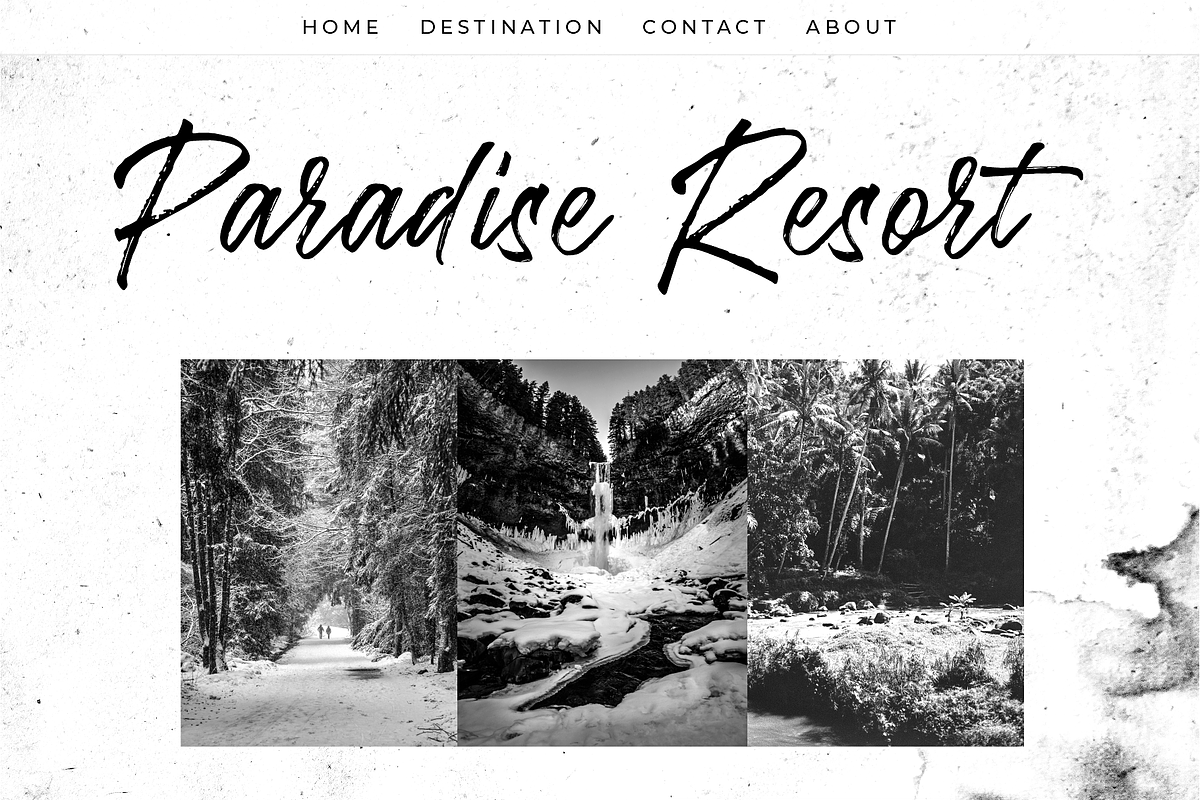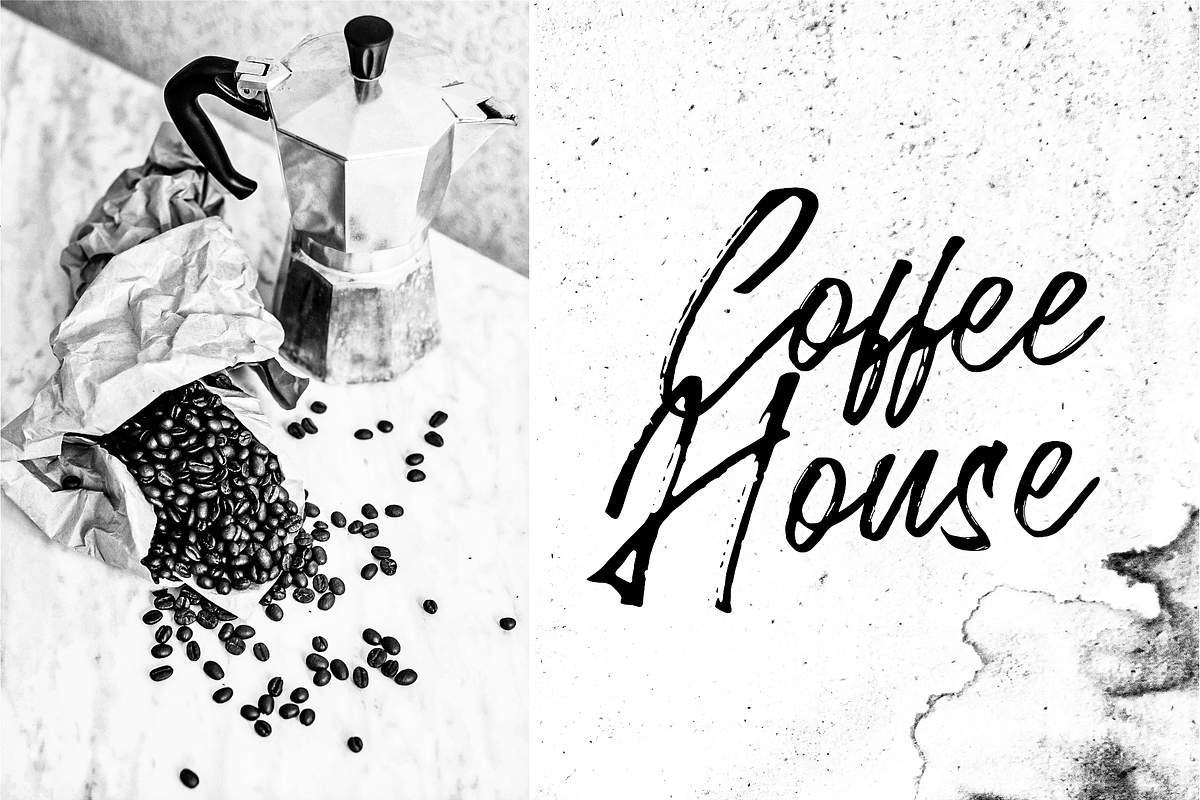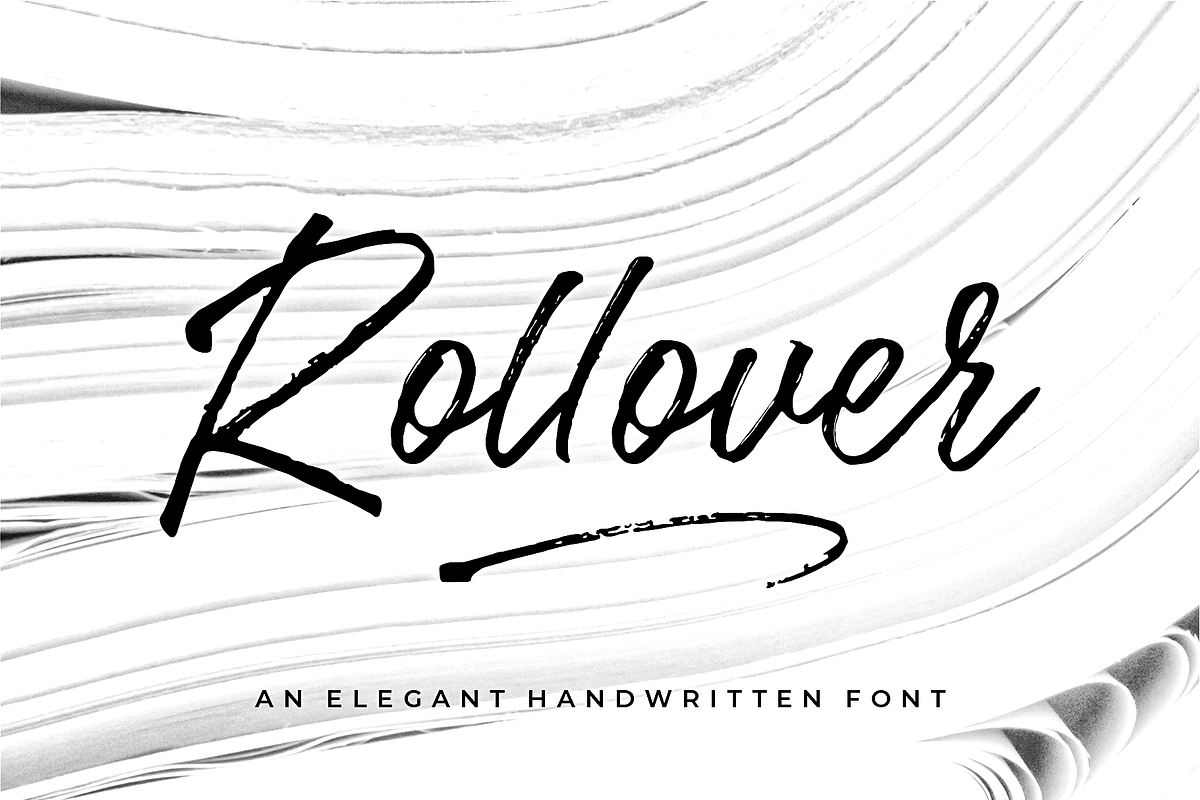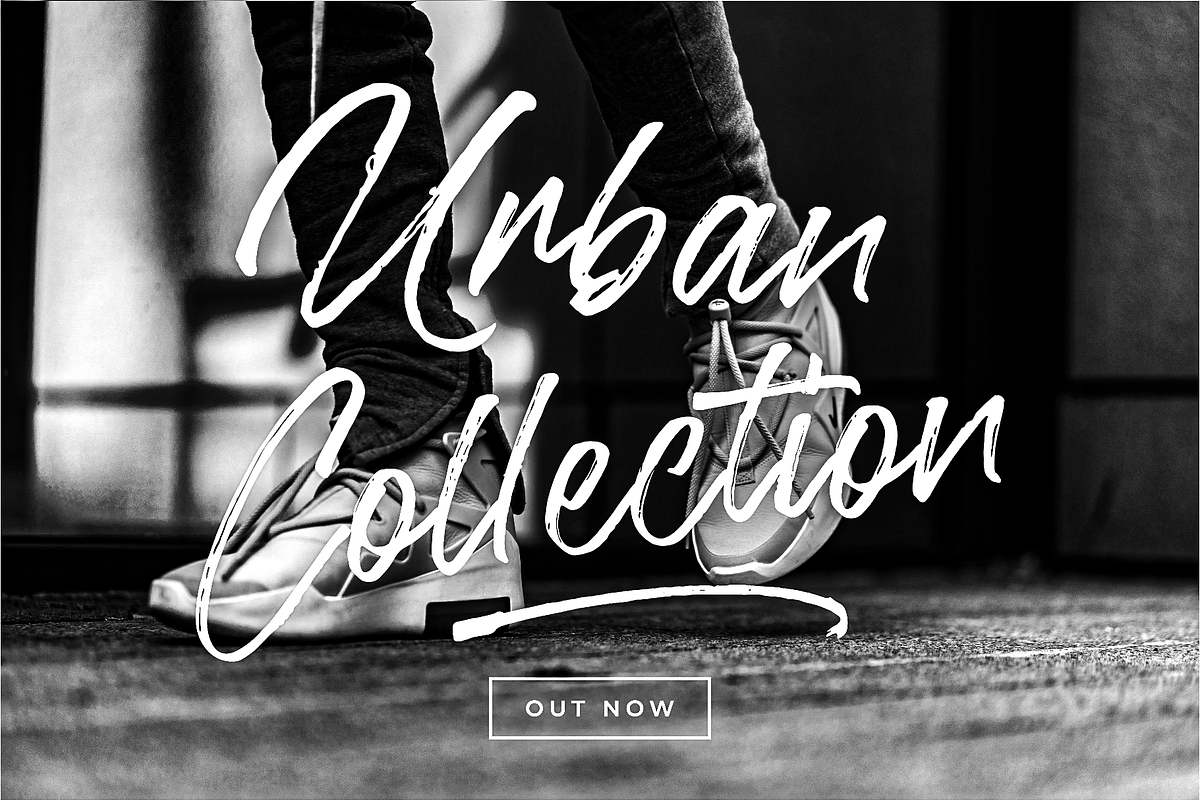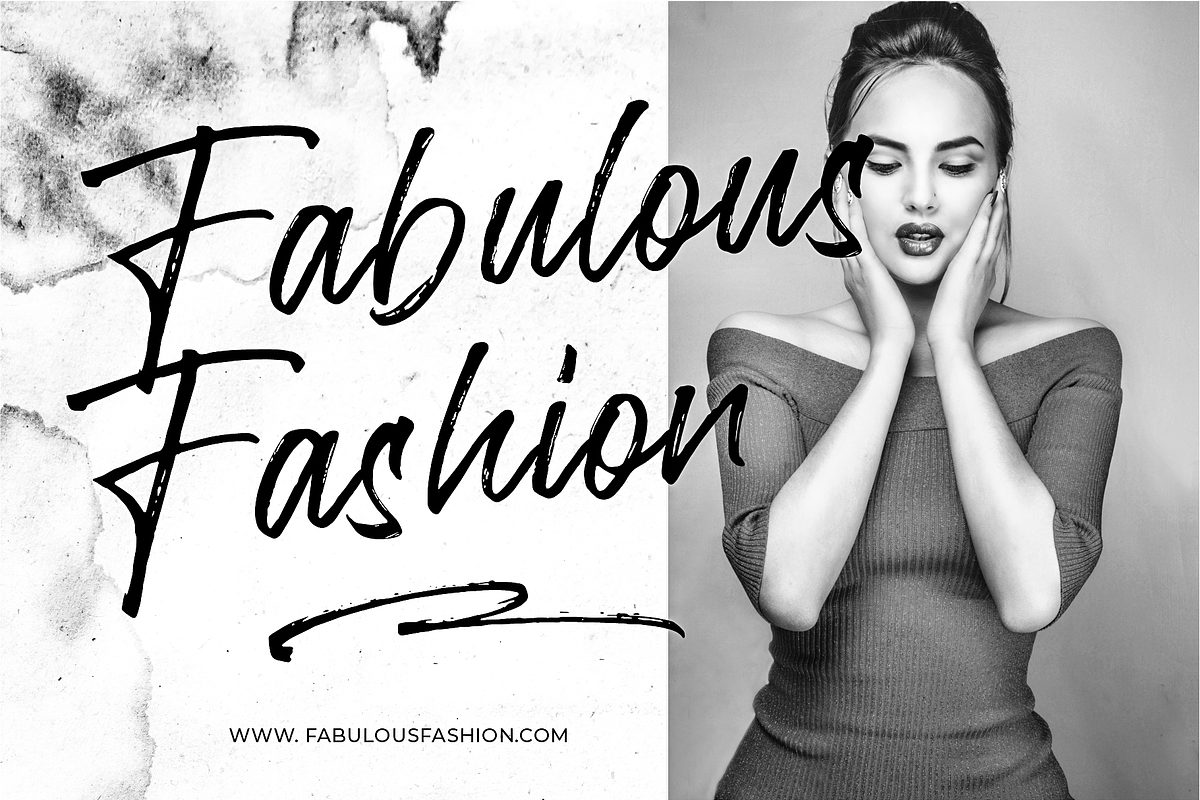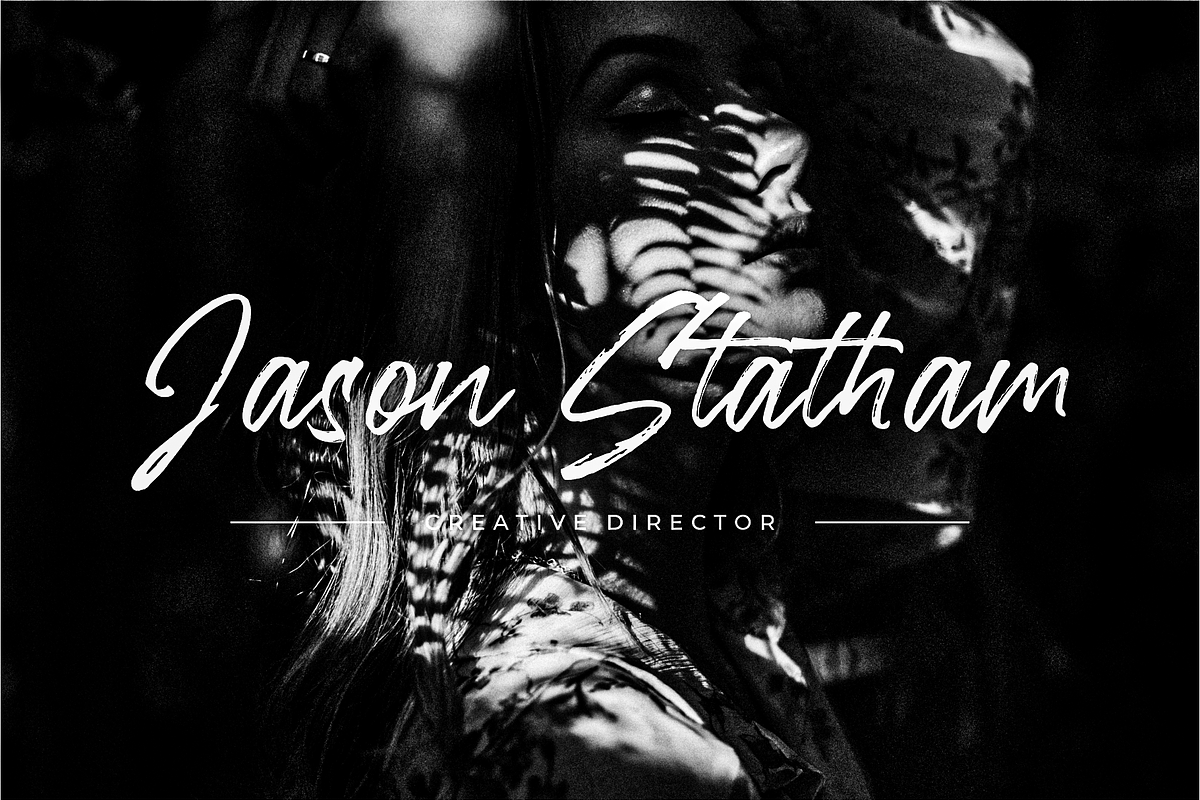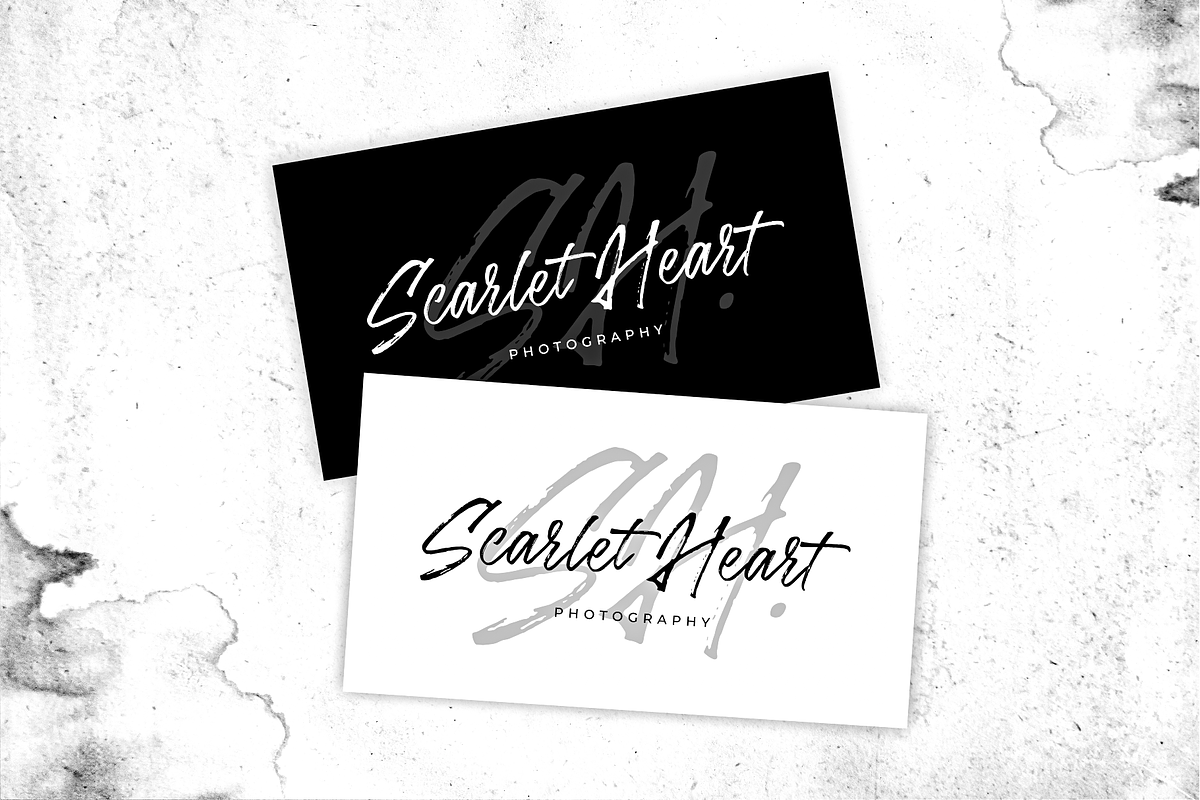
Rollover Brush Font
We’ve crafted the Rollover Brush Font by manually drawing brushed letterforms and carefully refining each brushstroke. You can try many variations by accessing OpenType features. You can easily achieve a natural, bold, and warm look with just one font. Rollover is perfect for branding projects, Logo design, product packaging, etc.
A full set of upper & lowercase characters
Numbers & punctuation
A full set of upper & lowercase characters (Alternates)
- A full set of upper & lowercase characters
- Numbers & punctuation
- A full set of upper & lowercase characters (Alternates)
- Swashes